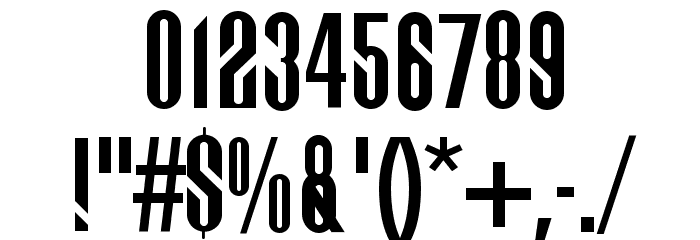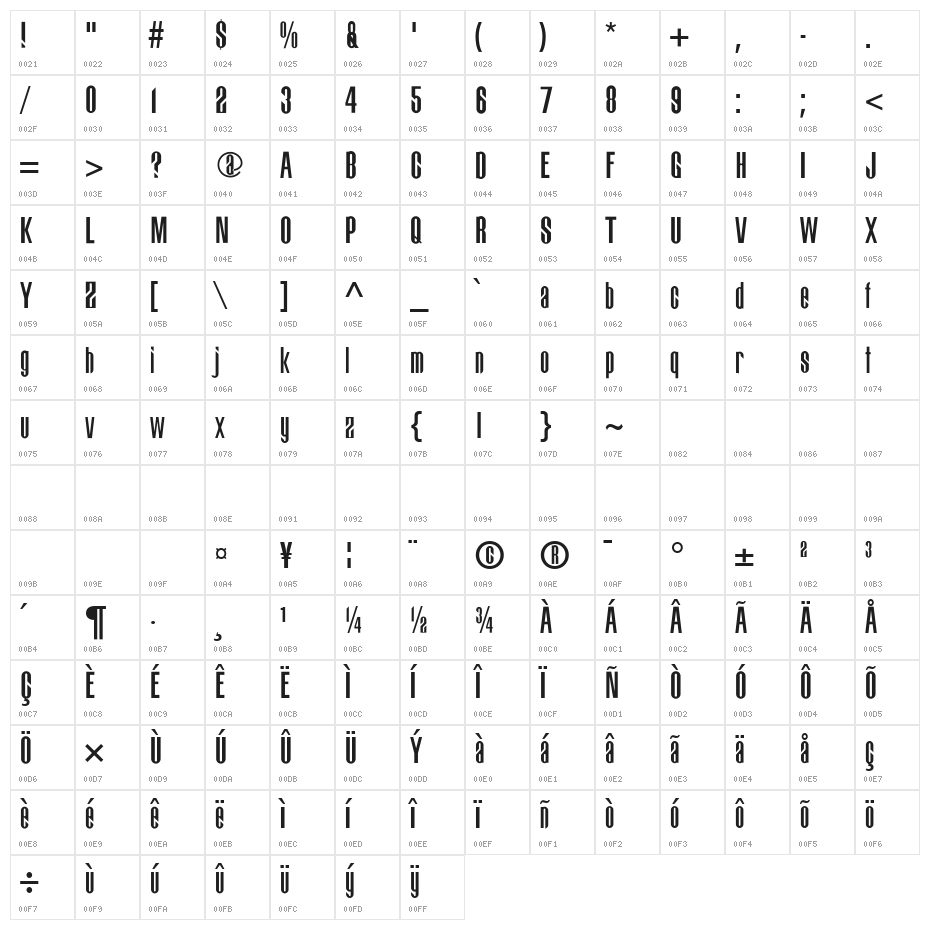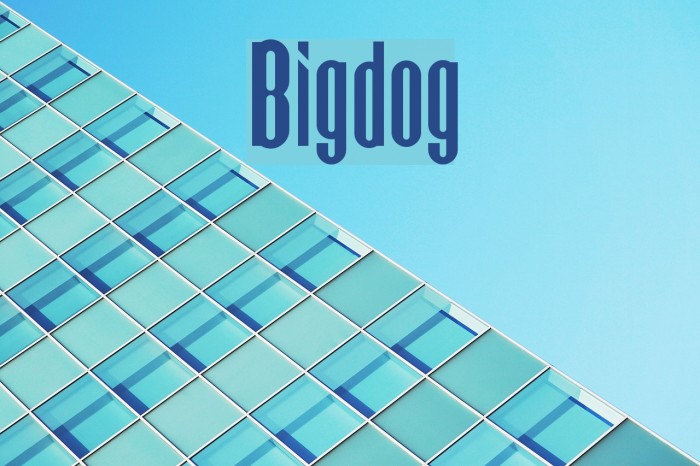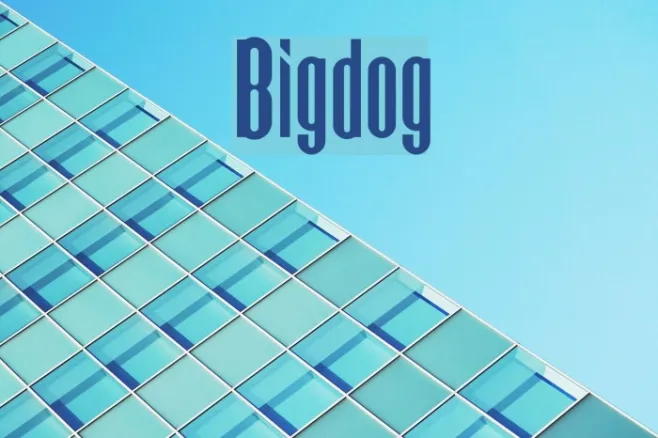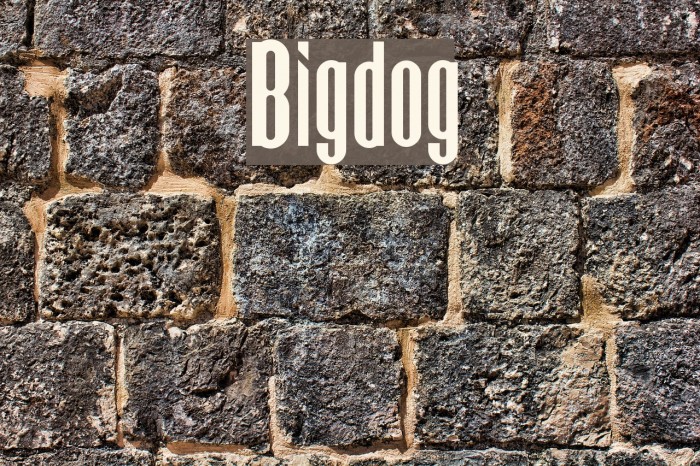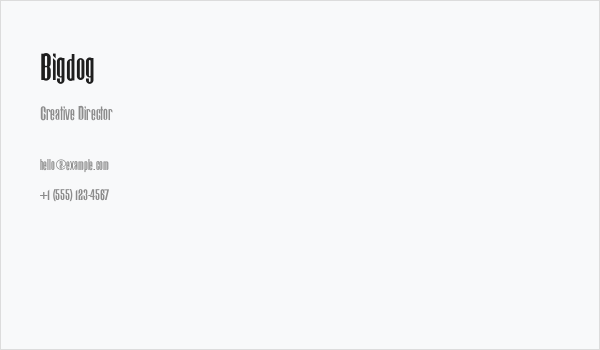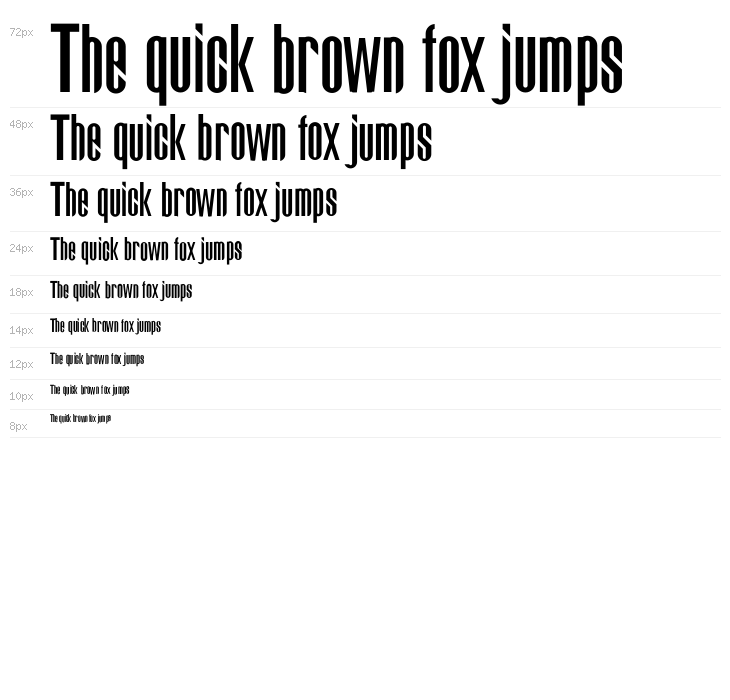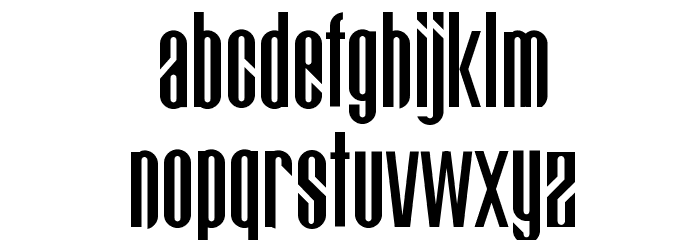
Bigdog Font
Bigdog Description
This font features a bold and condensed style with a strong vertical emphasis, making it highly impactful and attention-grabbing. The uppercase letters are tall and narrow, with consistent stroke widths that convey a sense of strength and modernity. The lowercase letters maintain the condensed form, ensuring uniformity across the typeface. Numbers and special characters follow the same design principles, providing a cohesive look. The overall design is sleek and contemporary, suitable for projects that require a striking visual presence.
| Proposed Projects | Ideal for posters, headlines, branding, and advertising where a strong visual impact is needed. |